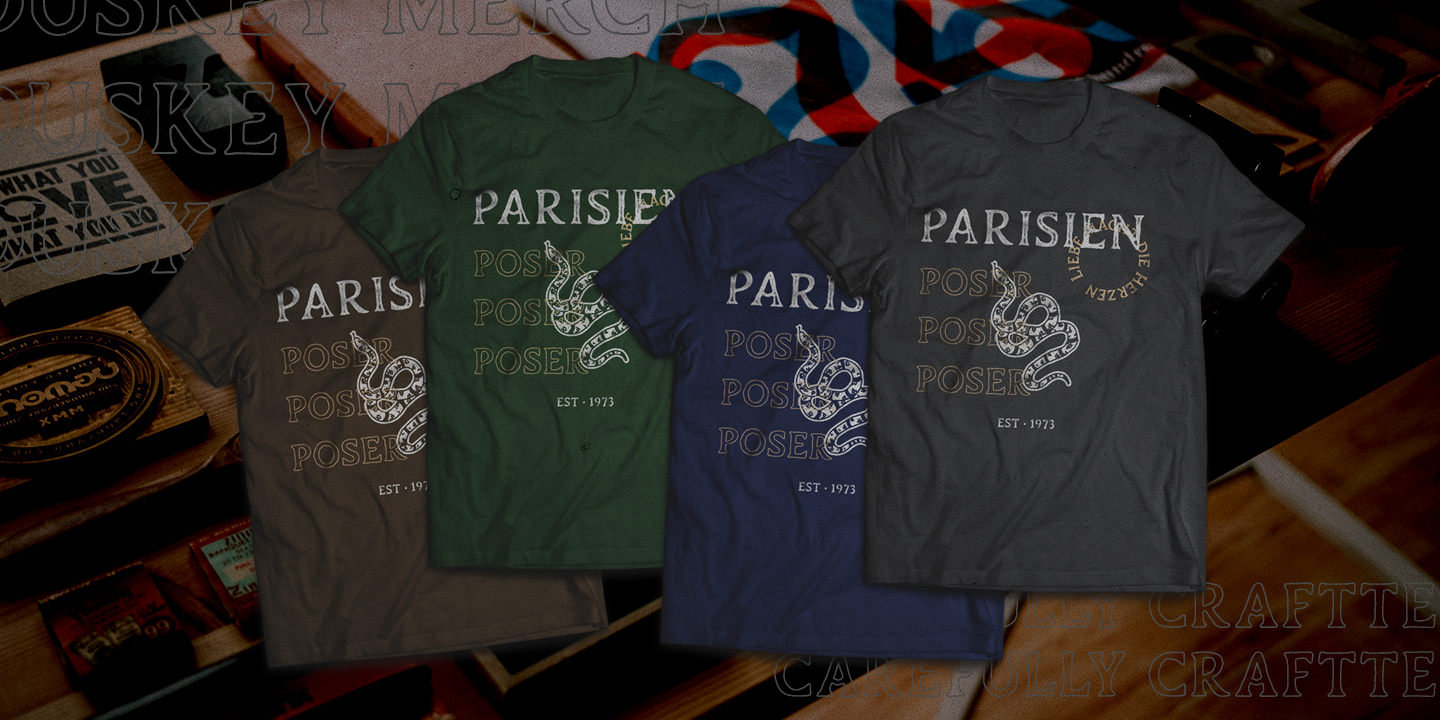
Duskey Font is a strikingly modern and clean typeface, perfectly suited for designs that require a sophisticated, minimalist, and highly readable aesthetic. Imagine it gracing the headlines of tech websites, adding a contemporary edge to corporate branding, or making a bold yet understated statement on architectural presentations. Its precise lines and balanced proportions also make it an excellent choice for crafting professional business reports, designing sleek mobile app interfaces, and creating impactful editorial layouts for modern publications. Whether you're aiming for a strong, innovative, or effortlessly chic look, Duskey Font delivers a clear and powerful visual identity that commands attention.
What makes Duskey Font truly exciting is its remarkable versatility and inherent professionalism. It embodies a sense of understated power, allowing your content to take center stage while still providing a distinct and memorable typographic foundation. The clarity and legibility of Duskey Font are outstanding, making it suitable for a wide range of applications from large display text to smaller body copy. It avoids unnecessary flourishes, focusing instead on pure form and function, which contributes to its timeless appeal and broad applicability in various design disciplines. Duskey Font stands out by offering a refined yet impactful presence that elevates any design it is used in.
The Duskey Font family typically offers a comprehensive range of weights and styles, providing exceptional flexibility for designers. You can usually find a spectrum from a delicate Thin or Light, perfect for elegant accents, to a robust Bold or Black, ideal for impactful headlines. Common weights often include Regular, Medium, and Semibold, each meticulously designed to maintain consistency and legibility across the entire family. Furthermore, many families will also offer corresponding Italic versions for each weight, providing even more design flexibility and stylistic variations. This extensive range ensures that Duskey Font Free Download can be effectively utilized to create visual hierarchies and dynamic, professional layouts across all your projects.